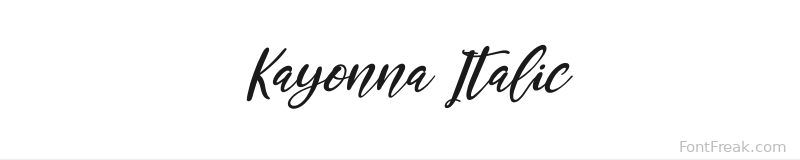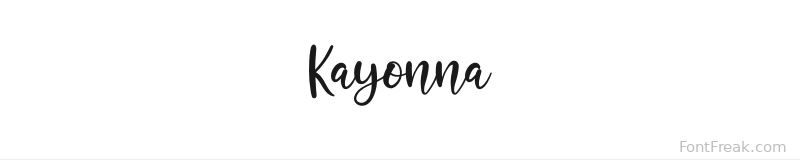
Kayonna Italic
Kayonna
Kayonna Italic is a beautifully crafted script typeface designed by Kong Font, embodying a graceful and elegant style ideal for a variety of design projects. This font belongs to the script category, characterized by its flowing, cursive-like strokes that exude a sense of sophistication. The stroke weight is moderate, offering a balanced contrast that enhances readability while maintaining an artistic flair. The spacing is well-considered, ensuring that letters connect seamlessly, which adds to the overall fluidity of the design.
With its distinctive visual characteristics, Kayonna Italic is perfect for wedding invitations, where its elegant curves can beautifully convey romance and celebration. Additionally, it makes an excellent choice for branding projects, including logos and product labels, where a touch of elegance is desired. The font can also elevate restaurant menus, providing a refined touch that enhances the dining experience, as well as personal stationery, making it suitable for thank-you notes or personal correspondence.
Targeting graphic designers, small business owners, and content creators, Kayonna Italic serves as a versatile tool in various creative endeavors. Its artistic nature allows it to stand out in any design, making it a go-to choice for those looking to add a personal touch to their work.